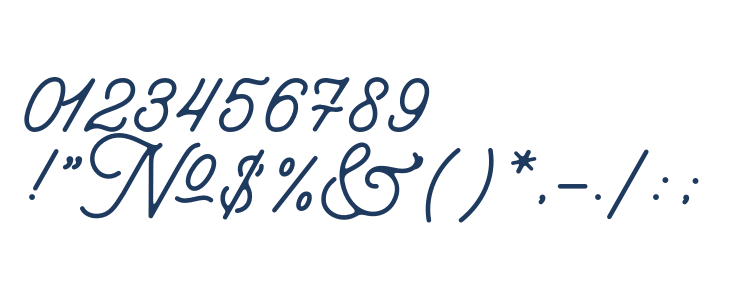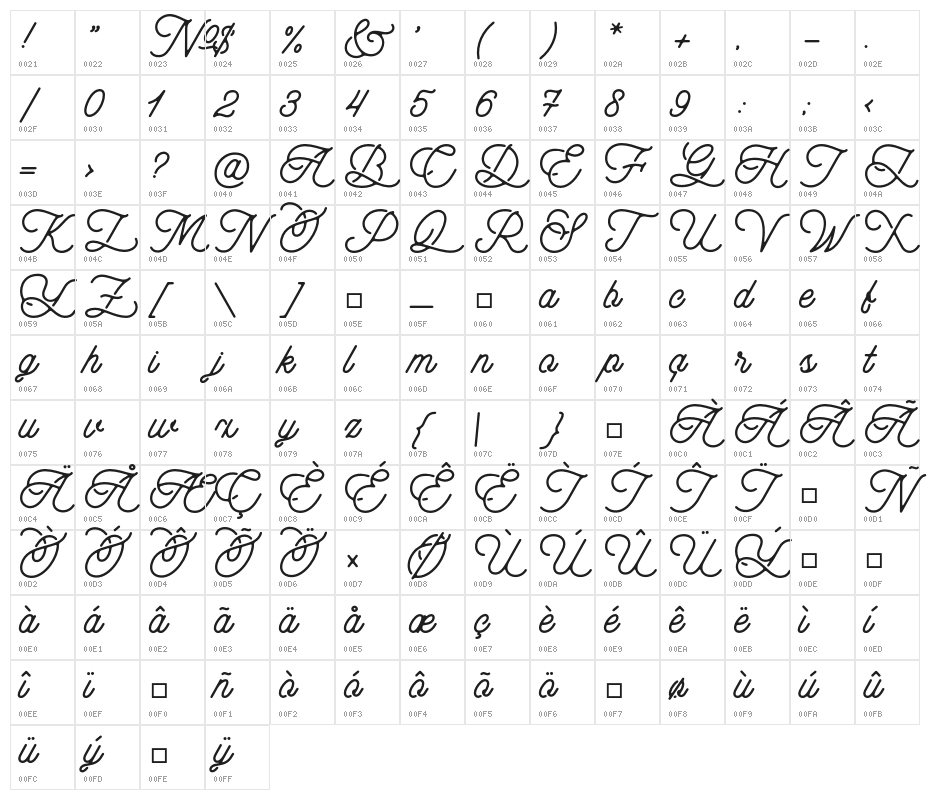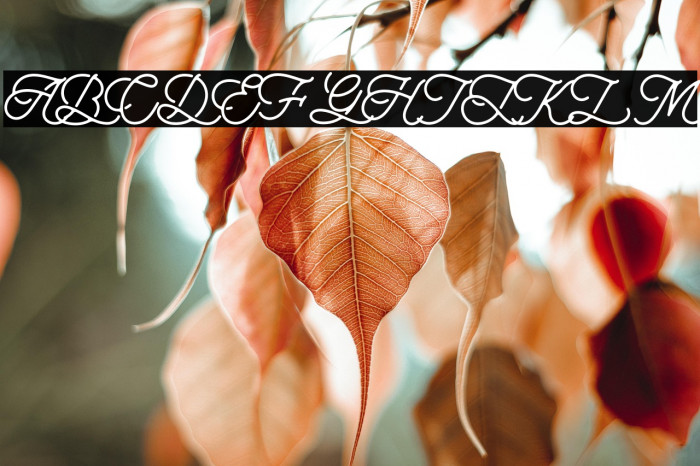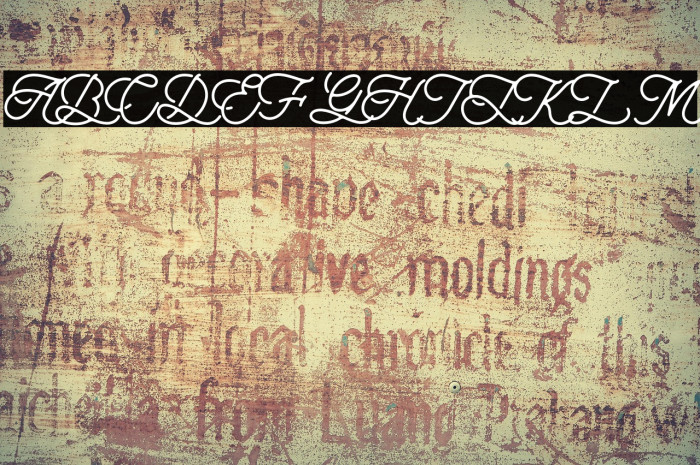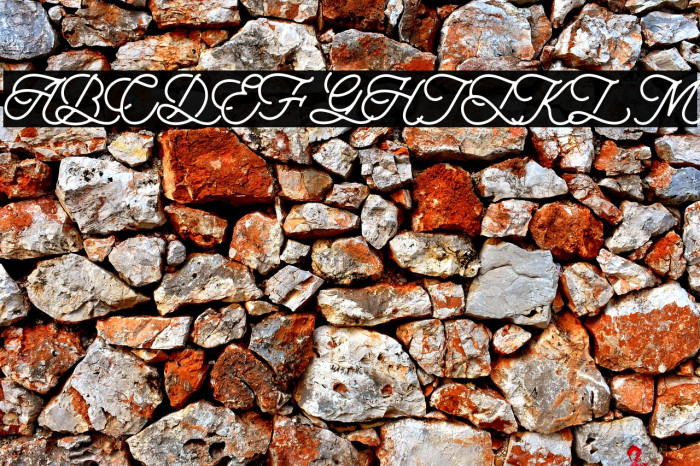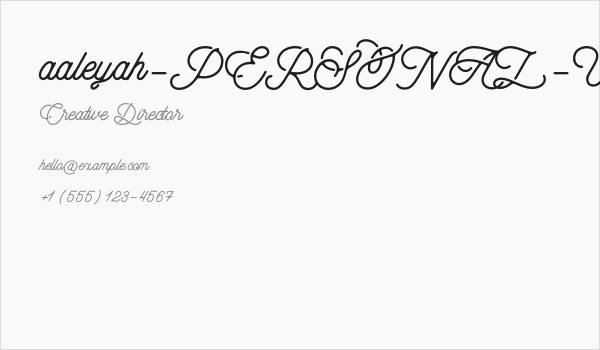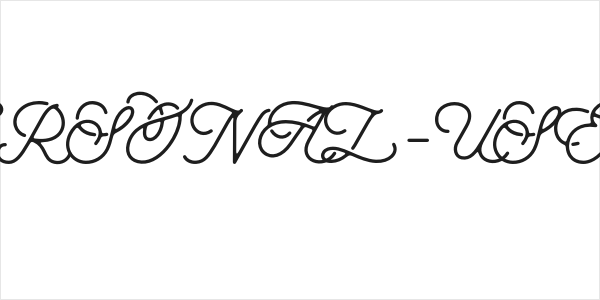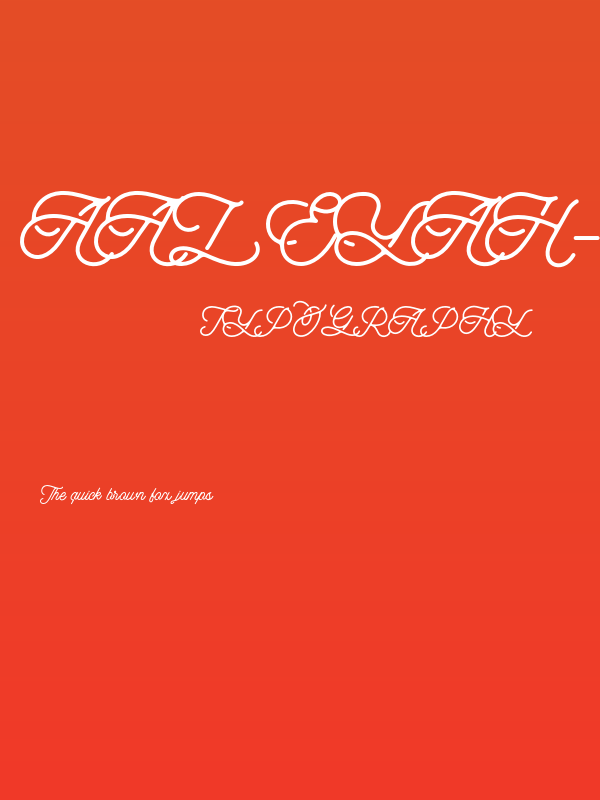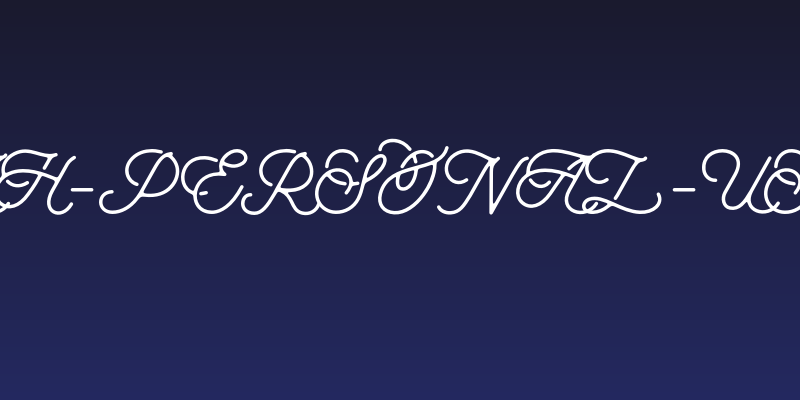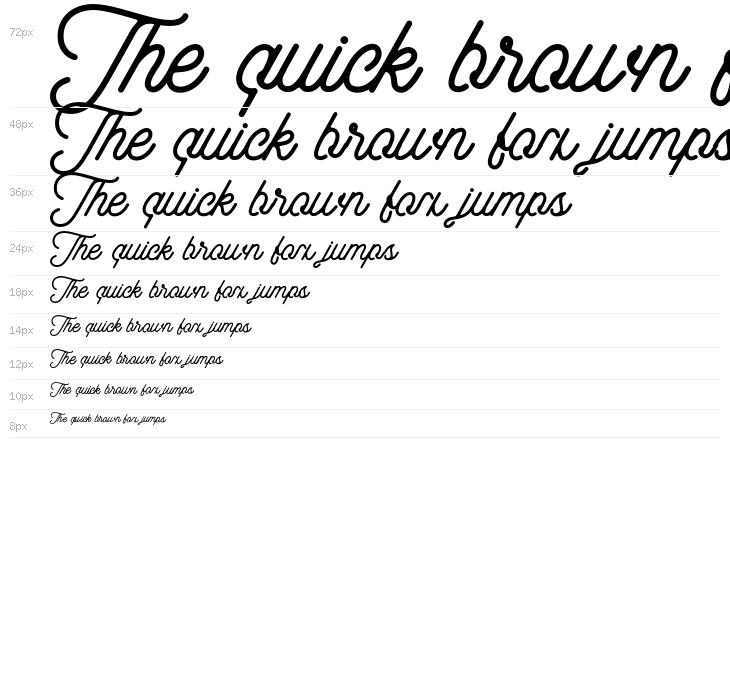
aaleyah-PERSONAL-USE-ONLY Font
aaleyah-PERSONAL-USE-ONLY Description
This font features an elegant and flowing script style, characterized by its intricate and decorative letterforms. The uppercase letters are particularly ornate, with elaborate swashes and loops that give a sense of sophistication and grace. The lowercase letters maintain a consistent flow, with smooth curves and a slight slant that enhances readability while preserving the artistic flair. The numerals are clear and well-defined, complementing the overall aesthetic. Special characters are thoughtfully designed, integrating seamlessly with the rest of the font. This typeface exudes a sense of luxury and refinement, making it ideal for projects that require a touch of elegance.